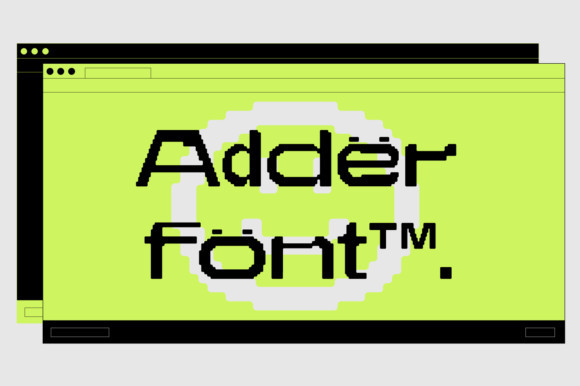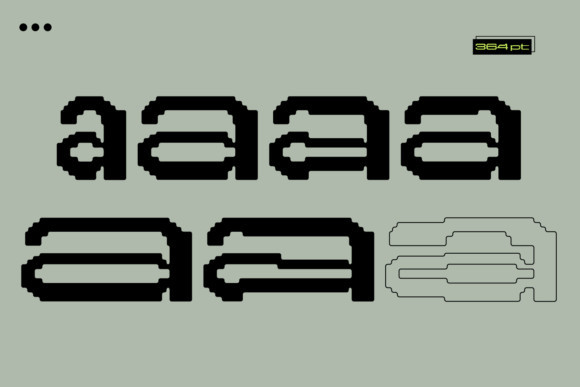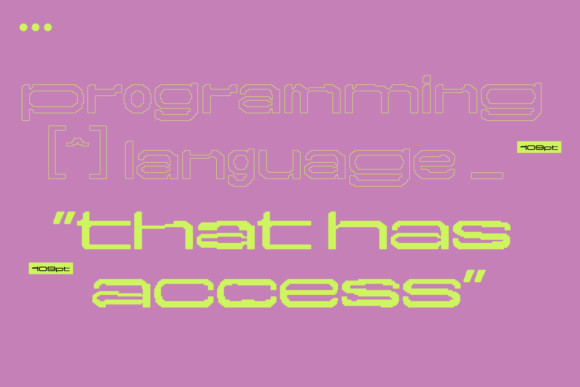
Adder Font
Addër is an incredibly unique and interesting display font. it celebrates abstract shapes in all their eclectic beauty! Add it to your creative ideas and it will make them stand out!